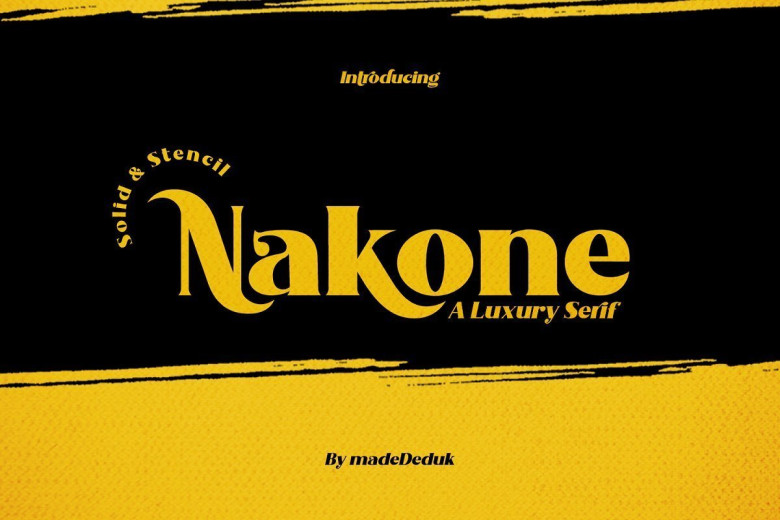
Nakone Luxury Serif Font
Nakone Luxury Serif Font is a classy and modern serif with a bunch of alternates for each characters and ligatures that will make your presentation or logo even more stunning and stand out!
You can use this font as a complement of your script collections or use this font as a stand alone font for several purposes such as a wedding invitations or even your own brand!